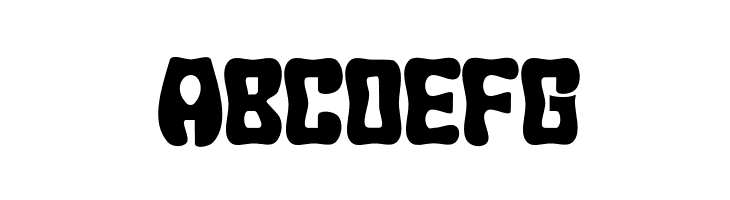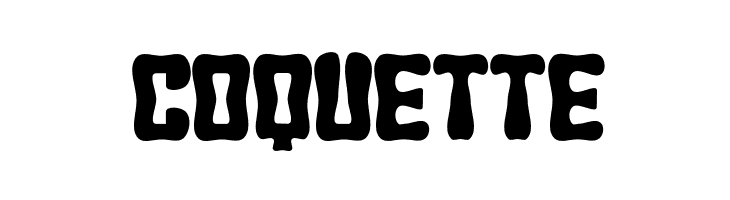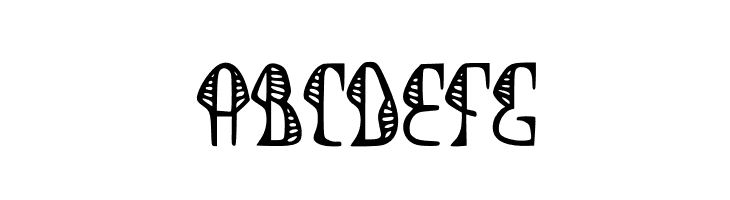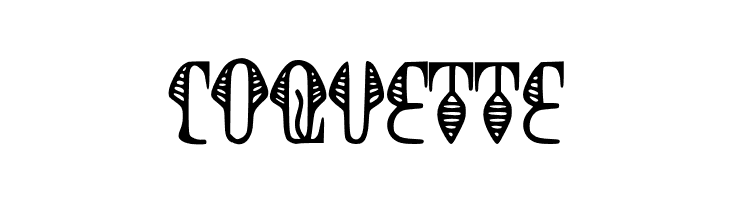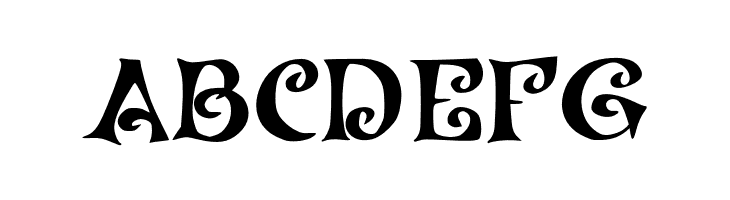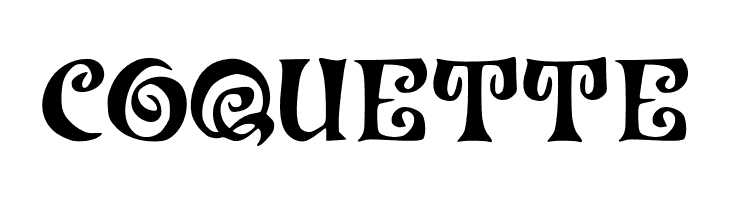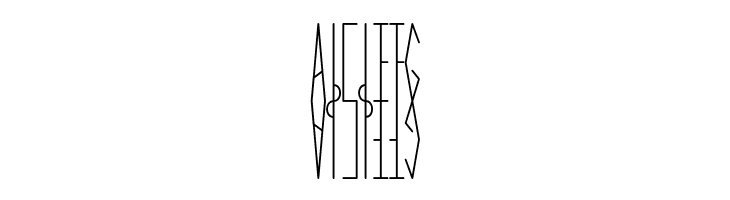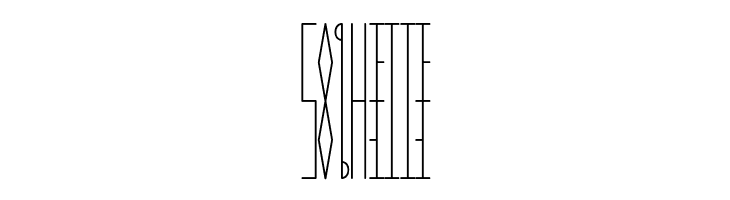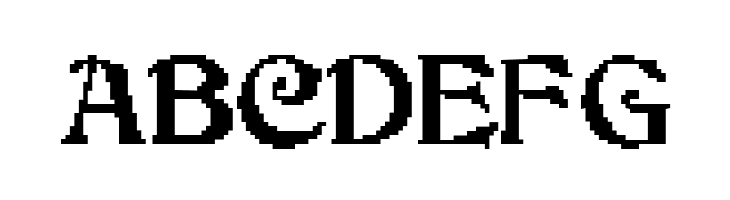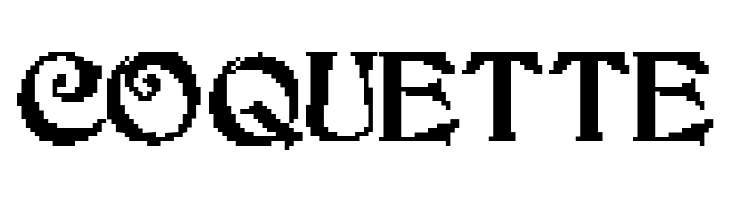
Font by joorgemoron. For commercial use please contact the owner. ( Free for personal use. ) A bold, high-contrast font with a condensed and dynamic style. Download 1303 Downloads@WebFont
Font by joorgemoron. For commercial use please contact the owner. ( Free for personal use. ) A serif font with sharp, angular serifs and a blend of classic and modern elements. Download 767 Downloads@WebFont
Font by joorgemoron. For commercial use please contact the owner. ( Free for personal use ) A playful, hand-drawn style font with bold, irregular letterforms. Download 117 Downloads@WebFont
( Fonts by joorgemoron - Personal-use only. For commercial use please contact owner. ) A decorative, elongated font with geometric patterns and sharp angles. Download 50 Downloads@WebFont
Font by joorgemoron. For commercial use please contact the owner. ( Free for personal use. ) A decorative and intricate font with elongated, geometric letterforms. Download 121 Downloads@WebFont
Font by joorgemoron. For commercial use please contact the owner. ( Free for personal use. ) An intricate, decorative font with elongated, geometric letterforms. Download 89 Downloads@WebFont
( Fonts by joorgemoron - Personal-use only. For commercial use please contact owner. ) A bold, playful font with thick, rounded strokes and a cartoonish style. Download 78 Downloads@WebFont
( Fonts by joorgemoron - Personal-use only. For commercial use please contact owner. ) A decorative font with bold, snake scale-inspired patterns. Download 41 Downloads@WebFont
( Fonts by joorgemoron - Personal-use only. For commercial use please contact owner. ) A bold, decorative font with whimsical curves and intricate details. Download 106 Downloads@WebFont
Font by joorgemoron. For commercial use please contact the owner. ( Free for personal use. ) A bold, jagged font with a hand-crafted, dynamic style. Download 89 Downloads@WebFont
Font by joorgemoron. For commercial use please contact the owner. ( Free for personal use. ) A bold, hand-drawn font with a playful, graffiti-like style. Download 101 Downloads@WebFont
Font by joorgemoron. For commercial use please contact the owner. ( Free for personal use ) A bold, dripping font with a spooky, eerie style. Download 143 Downloads@WebFont
Font by joorgemoron. For commercial use please contact the owner. ( Free for personal use. ) A bold, gothic-inspired font with sharp serifs and modern flair. Download 1469 Downloads@WebFont
( Joorgemoron@gmail.com ) A bold, gothic-inspired font with sharp angles and unique serifs. Download 78 Downloads@WebFont
( Joorgemoron@gmail.com ) A bold, gothic-inspired font with sharp angles and a dramatic presence. Download 80 Downloads@WebFont
( Joorgemoron@gmail.com ) A bold, decorative font with vintage arcade-inspired elements. Download 75 Downloads@WebFont
( Joorgemoron@gmail.com ) A bold, gothic-inspired font with sharp serifs and decorative elements. Download 75 Downloads@WebFont
Font by joorgemoron. For commercial use please contact the owner. ( Free for personal use. ) A bold, decorative font with gothic influences and striking serifs. Download 1167 Downloads@WebFont
Font by joorgemoron. For commercial use please contact the owner. ( Free for personal use. ) A bold, decorative font with intricate flourishes and a dramatic style. Download 561 Downloads@WebFont
Font by joorgemoron. For commercial use please contact the owner. ( Free for personal use. ) A bold, gothic-inspired font with sharp angles and decorative flourishes. Download 666 Downloads@WebFont
( Fonts by joorgemoron ) A bold, distressed font with a rugged, hand-crafted appearance. Download 162 Downloads@WebFont
( Fonts by joorgemoron ) Horror-themed dingbat set with detailed, hand-drawn illustrations. Download 102 Downloads@WebFont
( Fonts by joorgemoron ) A playful, bold font with a rugged, hand-drawn appearance. Download 144 Downloads@WebFont
Font by joorgemoron. For commercial use please contact the owner. ( Free for personal use. ) A bold, futuristic font with geometric and dynamic design elements. Download 304 Downloads@WebFont
( Fonts by Jorge Morón ) A bold, geometric font with a distinctive shadow effect for a 3D look. Download 80 Downloads@WebFont
Font by joorgemoron. For commercial use please contact the owner. ( Free for personal use ) A bold, decorative font with a unique scale-like pattern within each character. Download 132 Downloads@WebFont
Font by joorgemoron. For commercial use please contact the owner. ( Free for personal use ) A bold, textured font with a playful, scale-like pattern. Download 135 Downloads@WebFont
Font by joorgemoron. For commercial use please contact the owner. ( Free for personal use ) A bold, decorative font with a textured pattern and wavy outlines. Download 124 Downloads@WebFont
Font by joorgemoron. For commercial use please contact the owner. ( Free for personal use ) A bold, textured font with a playful, tactile appearance. Download 120 Downloads@WebFont
Font by joorgemoron. For commercial use please contact the owner. ( Free for personal use ) A playful, hand-drawn font with a wavy, outlined style. Download 109 Downloads@WebFont
Font by joorgemoron. For commercial use please contact the owner. ( Free for personal use ) A bold, textured font with a fish scale pattern, perfect for decorative use. Download 104 Downloads@WebFont